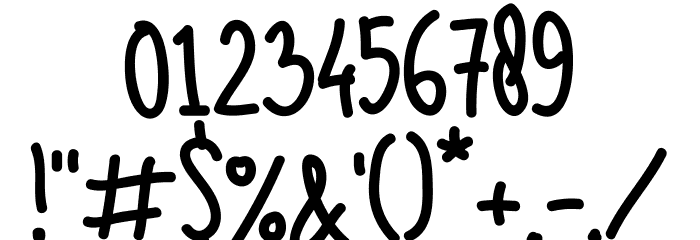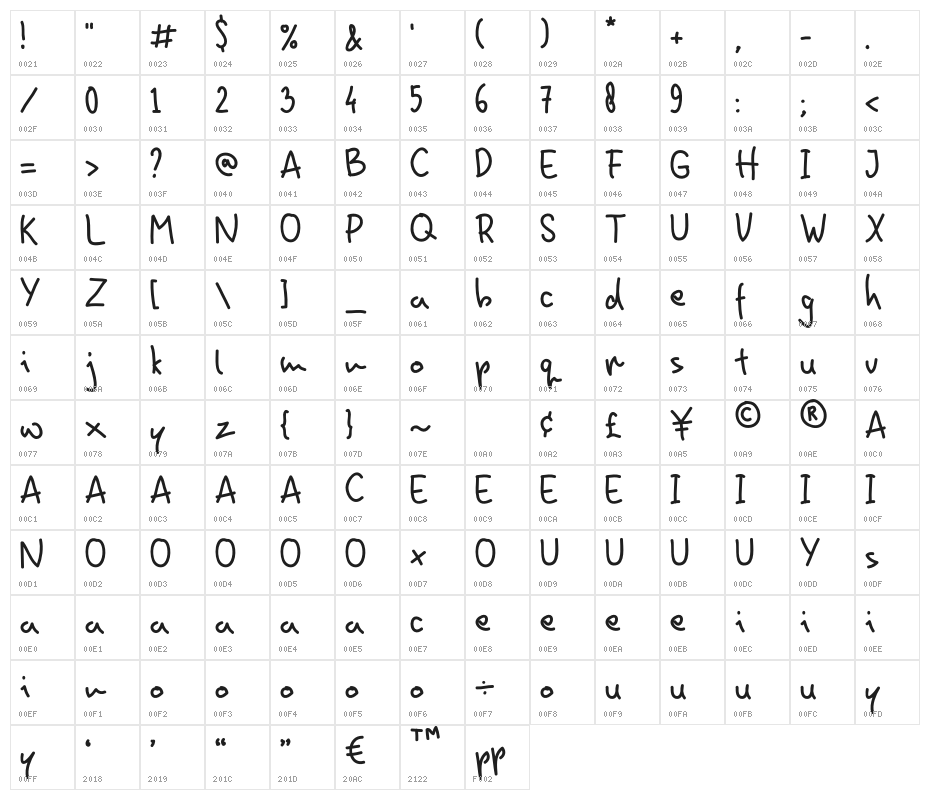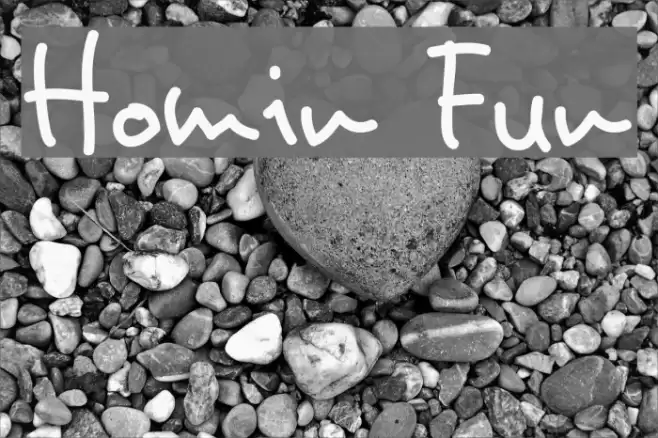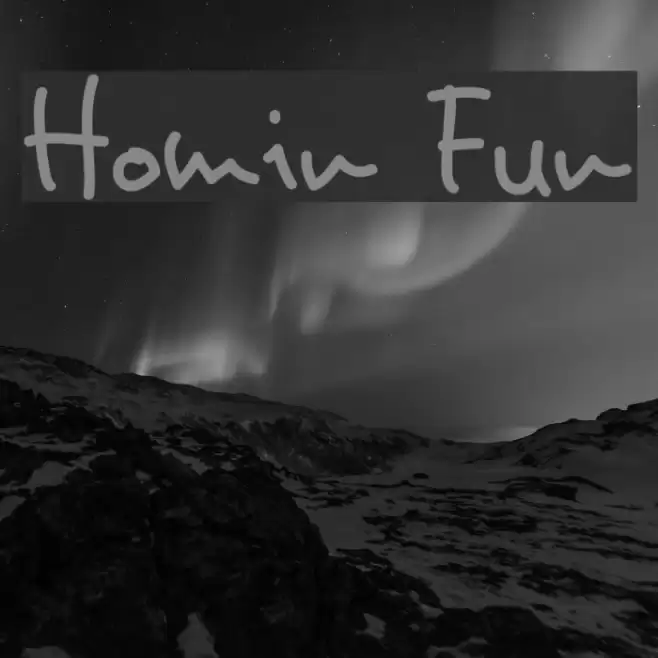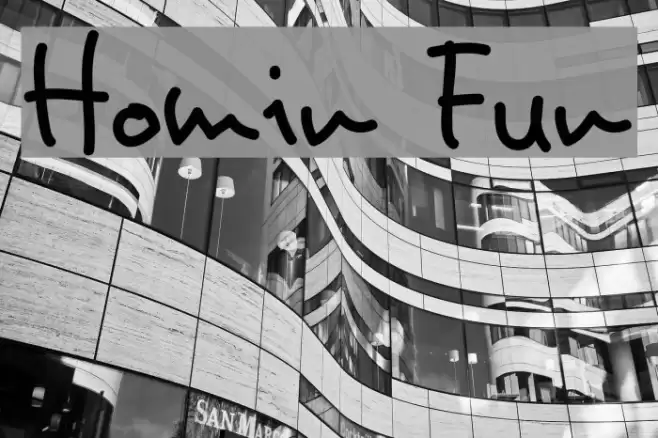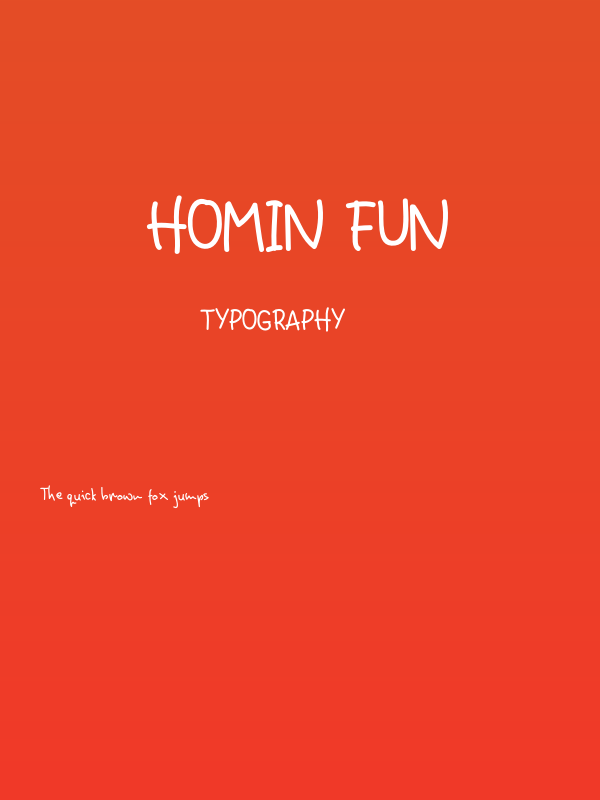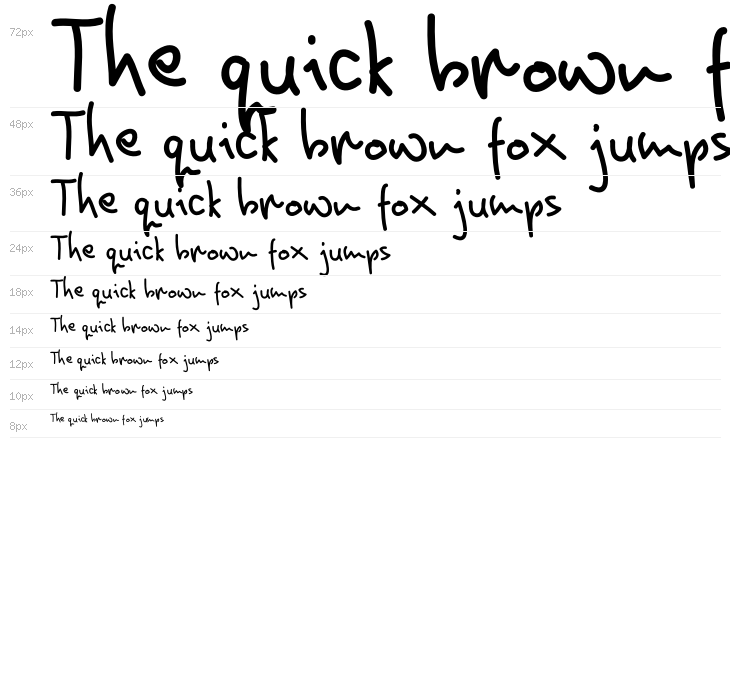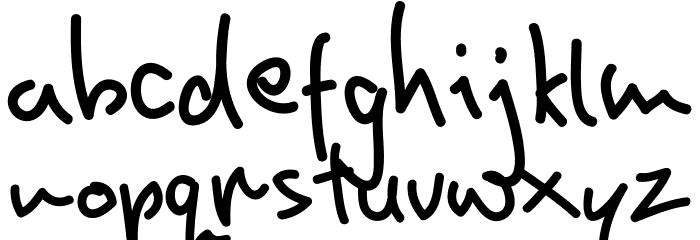
Homin Fun Font
Homin Fun Description
This playful and energetic font features a handwritten style with a casual and informal appearance. The letters are slightly irregular, giving it a lively and dynamic feel. The uppercase and lowercase characters maintain a consistent flow, while the numbers and special characters blend seamlessly into the overall design. The strokes are smooth and rounded, contributing to its approachable and friendly vibe. This font is perfect for projects that require a personal touch or a fun, whimsical aesthetic.
| Proposed Projects | Ideal for greeting cards, children's books, playful branding, and social media graphics. |